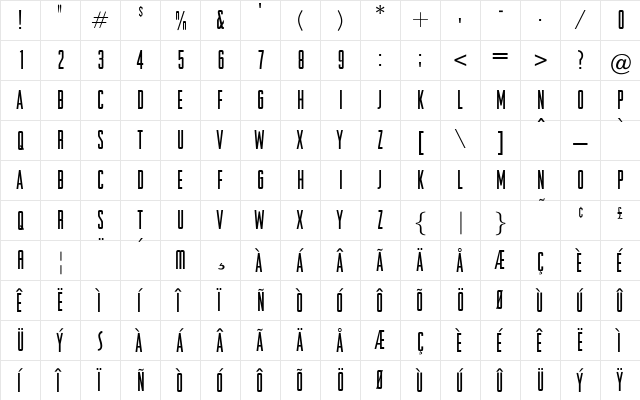
ORaleigh Medium
| Foundry | Castcraft Software, Inc |
Design Context for ORaleigh Typeface
ORaleigh takes a measured approach to typography — its balanced proportions and neutral character make it a reliable workhorse for both digital and print work.
Pro Tip: Use ORaleigh in both headline and body roles to test its range before committing to a single application.